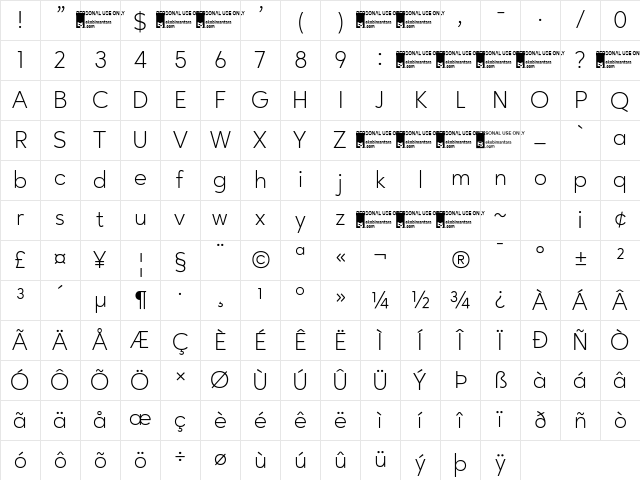
Ageo Trial Light Regular Free Font
Ageo Trial Light Regular
Designer: Eko Bimantara
Design Context for Ageo Trial Light
Ageo Trial Light is a composed and adaptable typeface that performs quietly and consistently across a wide range of design contexts. Its slender proportions lend an understated elegance to any composition.
Pro Tip: Use Ageo Trial Light in both headline and body roles to test its range before committing to a single application.